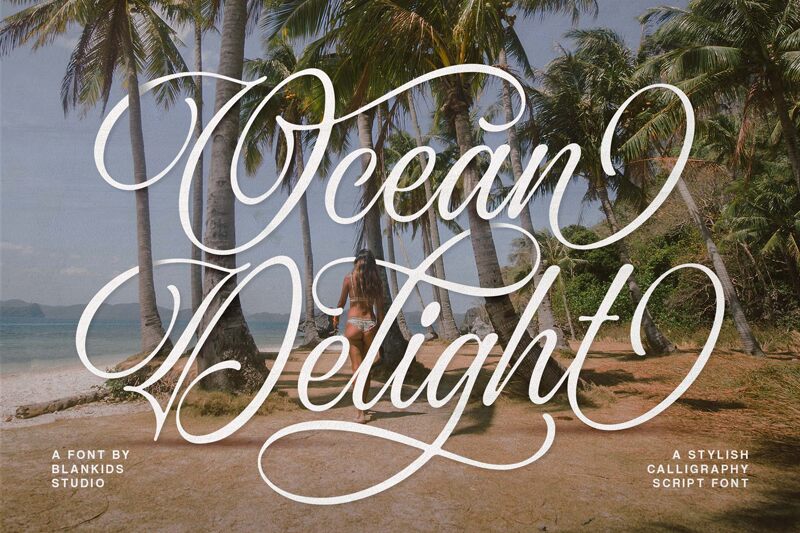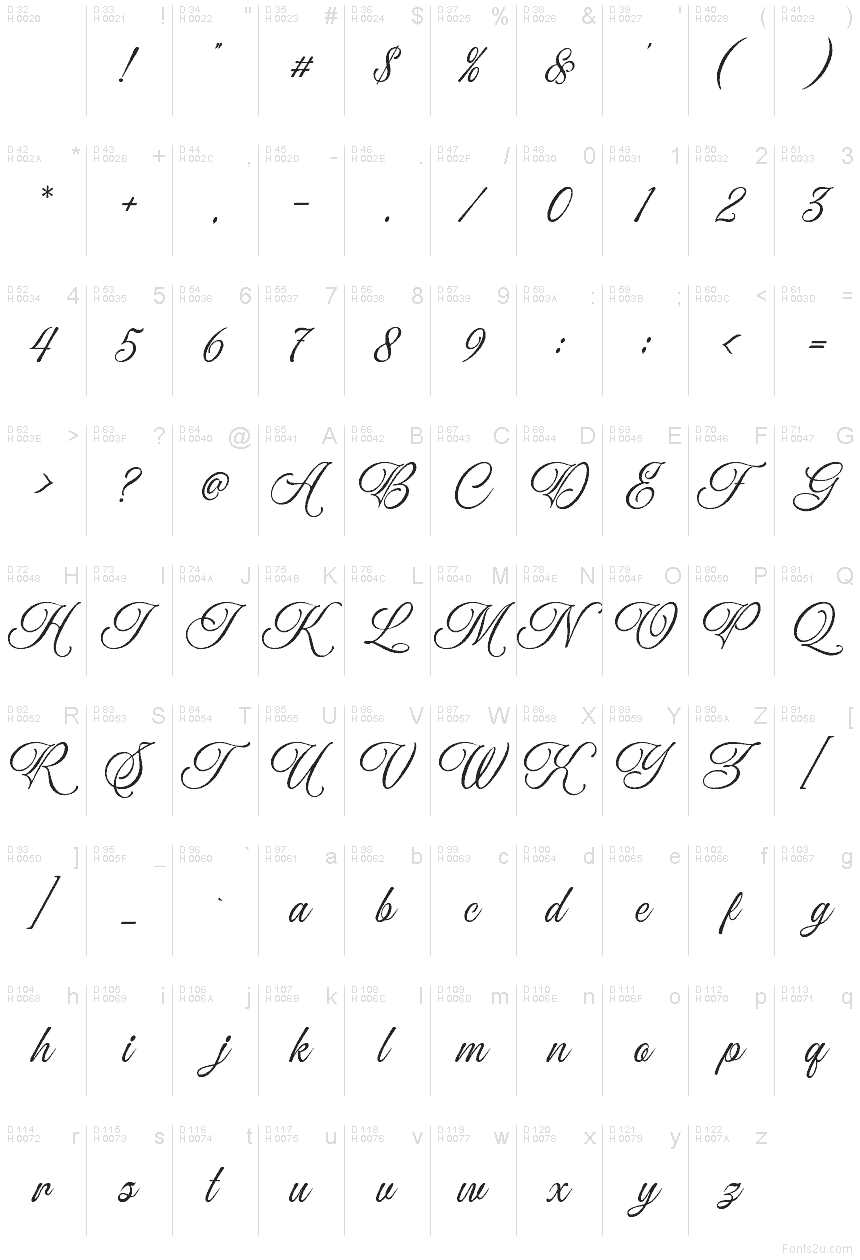
Ocean Delight font by Blankids is a free calligraphy font that pours across the page like wet ink from a vintage pen. Its sweeping caps, narrow loops, and gently tilted rhythm give it a romantic, shoreline elegance-refined but not stiff, like a handwritten note tucked into a bouquet. The strokes feel smooth and fluid, with just enough texture to keep it from looking mechanical.
Using Ocean Delight, this free font shines on wedding invitations, save-the-date cards, luxury packaging, boutique logos, event signage, and keepsake prints or quotes. Its flowing style instantly adds warmth and ceremony to names, short phrases, and headlines. For balance, pair this script typeface with a clean, light sans serif for body text and let Ocean Delight handle the names and key phrases at larger sizes.
Ocean Delight Font by Blankids Studio
Ocean Delight